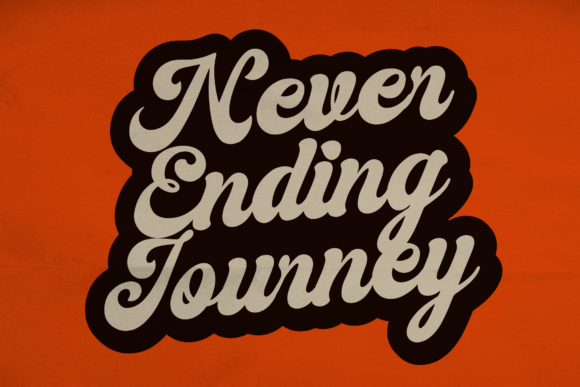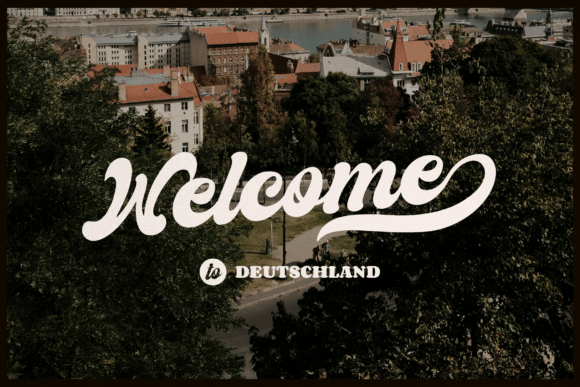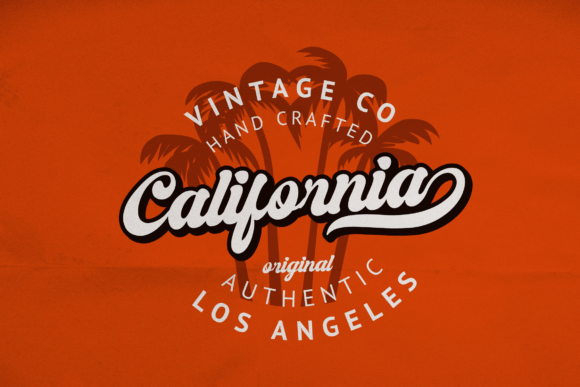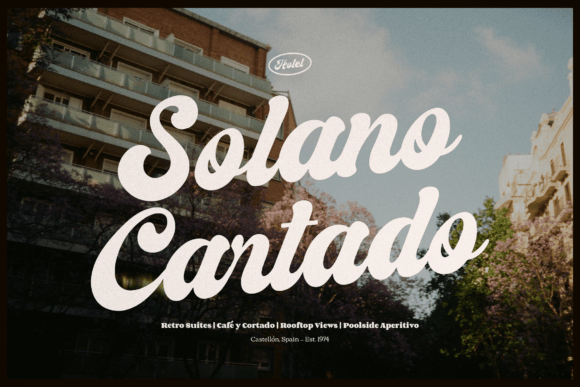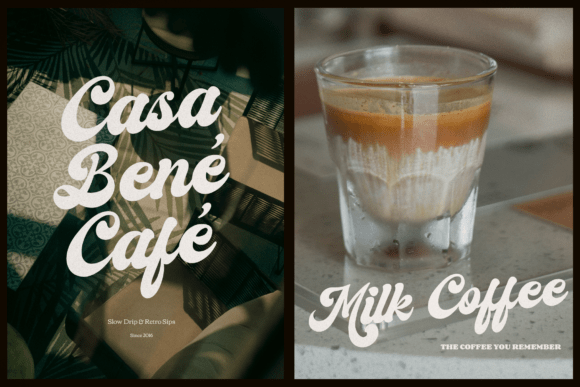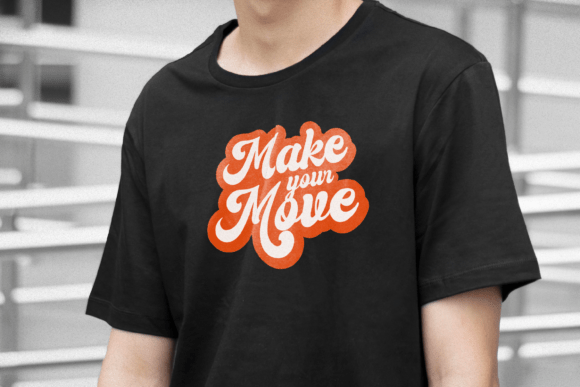
Introduction to Mooligat Font
Mooligat is a bold vintage script font that combines retro charm with modern versatility.
With smooth curves, playful swashes, and a strong shadowed presence, itโs perfect for logos, branding, packaging, and any design that needs a nostalgic yet powerful look .